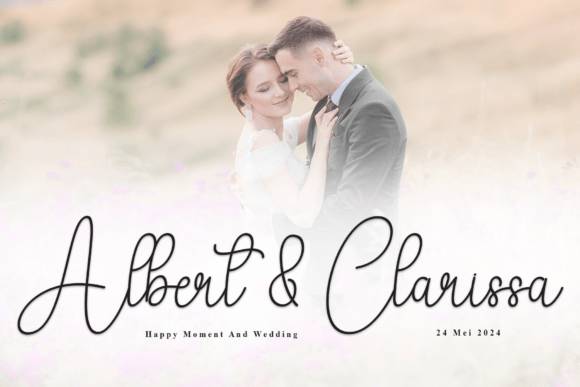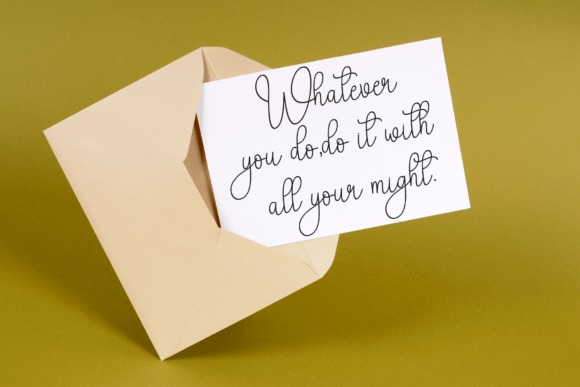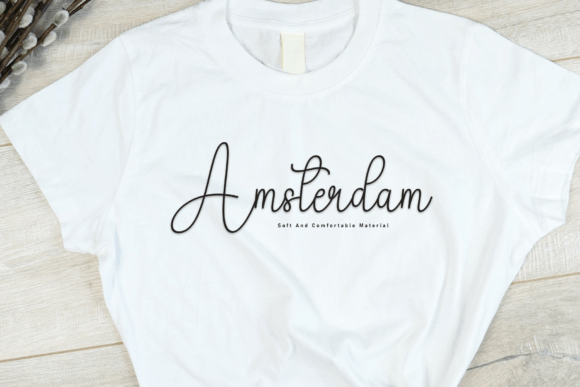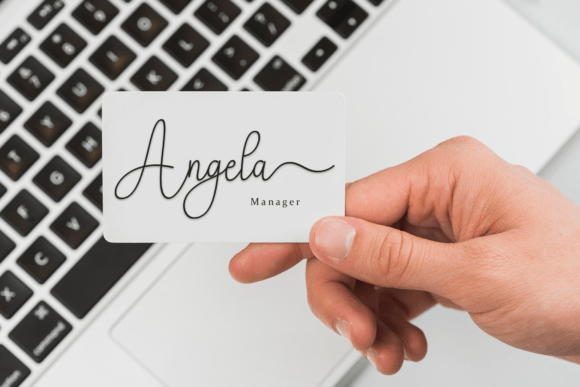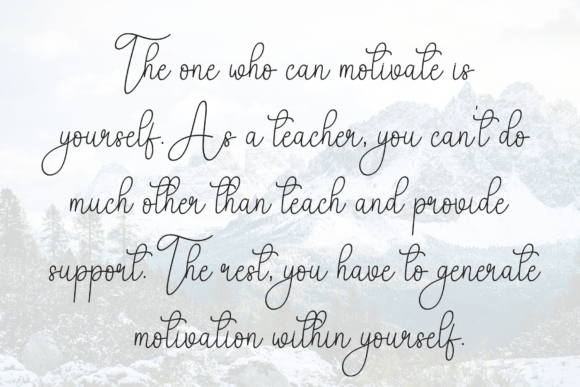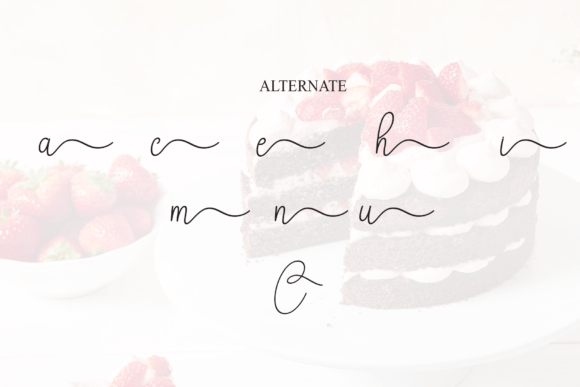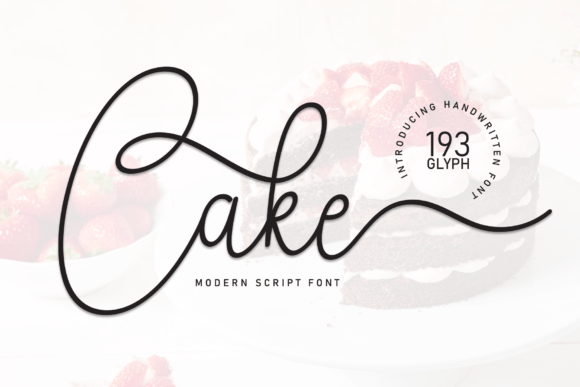
Cake Font: The Sweet and Friendly Handwritten Font for Your Design Needs
Are you looking for a font that can add a touch of sweetness and friendliness to your designs? Look no further than the Cake Font! This beautiful handwritten font is perfect for a wide range of design projects, from baking and cooking to crafting and DIY. In this article, we’ll take a closer look at the Cake Font, its features, and how you can use it to take your designs to the next level.
What is Cake Font?
Cake Font is a sweet and friendly handwritten font that is designed to bring a personal touch to your designs. Its natural and unique style makes it incredibly fitting to a large pool of designs, from invitations and greeting cards to blog posts and social media graphics. The font is highly versatile and can be used for both personal and commercial projects.
Features of Cake Font
So, what makes Cake Font so special? Here are some of its key features:
• Handwritten style: Cake Font has a beautiful handwritten style that gives it a personal and friendly feel.
• Natural and unique: The font’s natural and unique style makes it stand out from other fonts and adds a touch of personality to your designs.
• Highly versatile: Cake Font can be used for a wide range of design projects, from baking and cooking to crafting and DIY.
• Easy to read: The font is highly legible and easy to read, making it perfect for body text and headlines.
How to Use Cake Font in Your Designs
Now that we’ve covered the features of Cake Font, let’s talk about how you can use it in your designs. Here are some ideas to get you started:
• Baking and cooking designs: Use Cake Font to create adorable baking and cooking designs, such as recipe cards, food blogs, and social media graphics.
• Crafting and DIY projects: Add a personal touch to your crafting and DIY projects, such as handmade cards, gift tags, and scrapbooking pages.
• Invitations and greeting cards: Use Cake Font to create beautiful invitations and greeting cards for special occasions, such as birthdays, weddings, and holidays.
• Blog posts and social media graphics: Add a touch of personality to your blog posts and social media graphics with Cake Font.
Tips for Using Cake Font Effectively
Here are some tips for using Cake Font effectively in your designs:
• Pair it with other fonts: Experiment with pairing Cake Font with other fonts to create a unique and visually appealing design.
• Use it for headlines and body text: Use Cake Font for both headlines and body text to create a cohesive and easy-to-read design.
• Add embellishments: Add embellishments, such as flowers and ribbons, to give your design a more whimsical and playful feel.
• Experiment with colors: Experiment with different colors to find the perfect combination that matches your brand or design style.